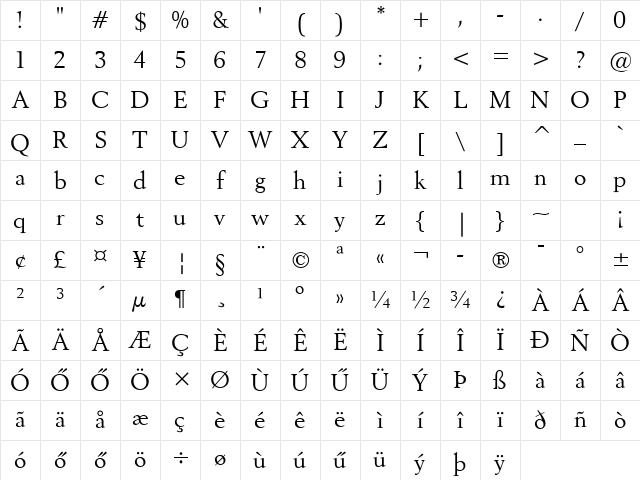
Revival565-HU Normal
Revival565-HU Family
Design Context for Revival565-HU
Revival565-HU is a composed and adaptable typeface that performs quietly and consistently across a wide range of design contexts.